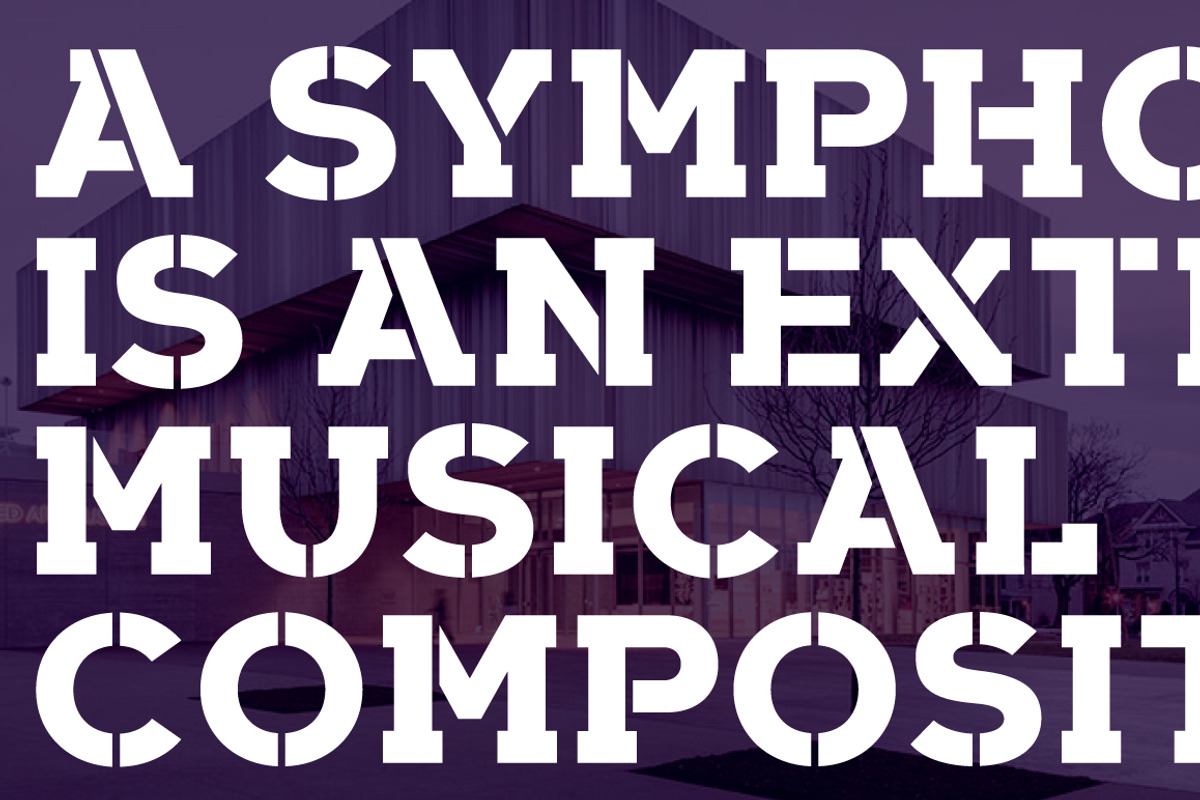
The Arkibal Serif Stencil Font Free Download is a bold and distinctive typeface that combines the classic appeal of serif typography with a modern stencil design. Featuring strong, sharp lines and a unique, industrial style, this font is perfect for creating impactful logos, branding, posters, and editorial work. Whether you’re working on a contemporary project, military-themed design, or an urban brand, Arkibal Serif Stencil adds a creative, rugged touch to your work.
Arkibal Serif Stencil Font Free Download is ideal for designers looking to make a bold statement with their typography. Perfect for high-visibility designs, branding, and creative projects, this font will elevate your designs with its striking and modern stencil look. Download it today and bring an industrial edge to your creative work with Arkibal!